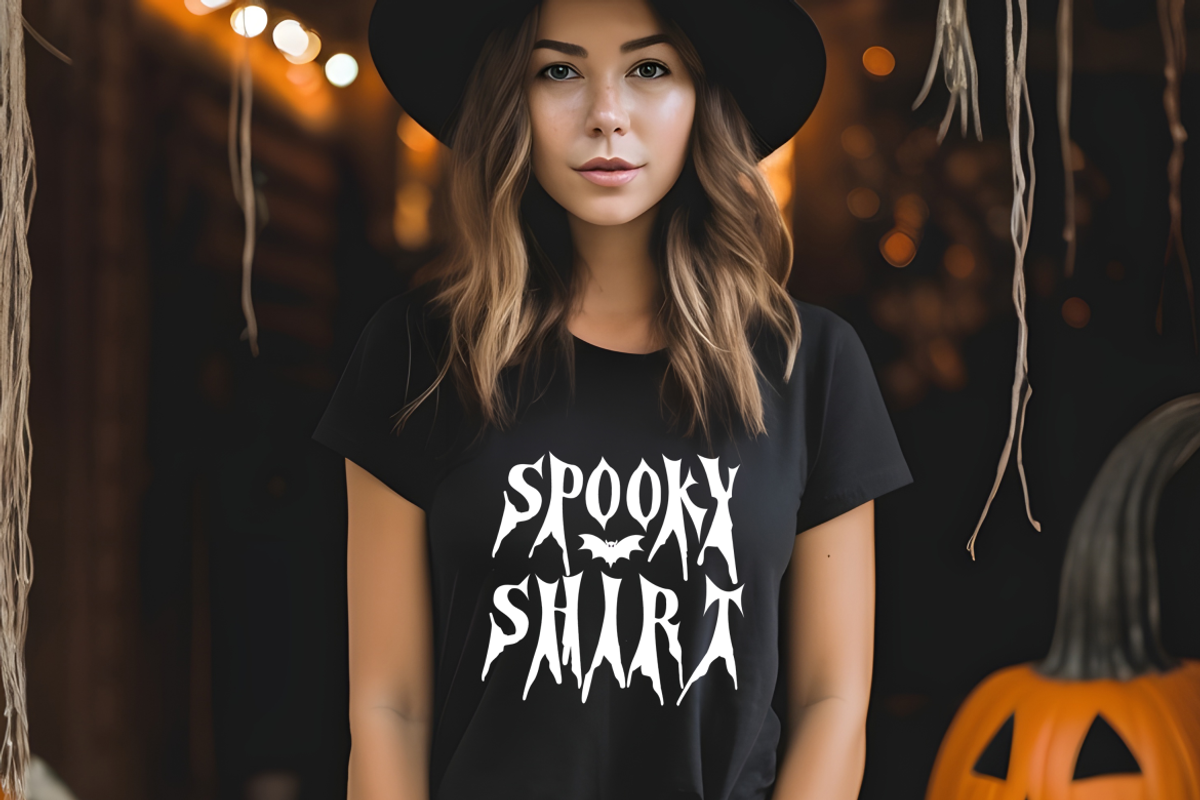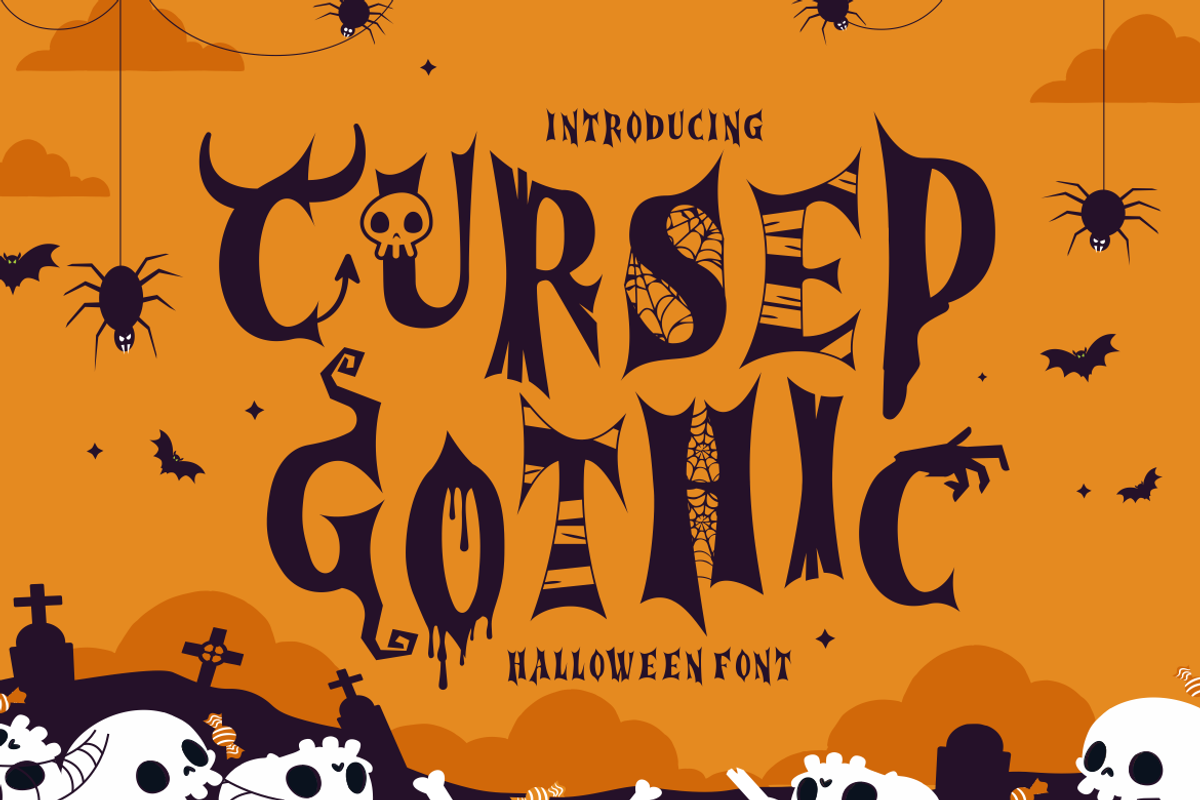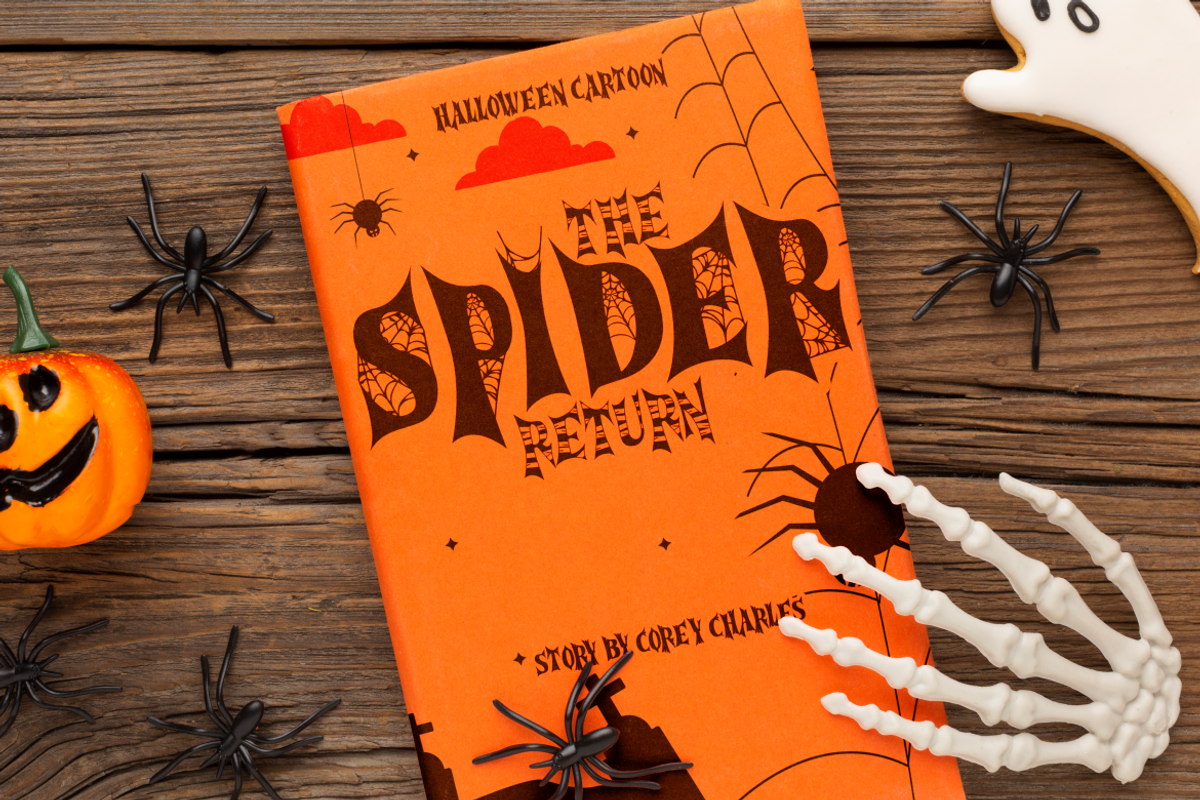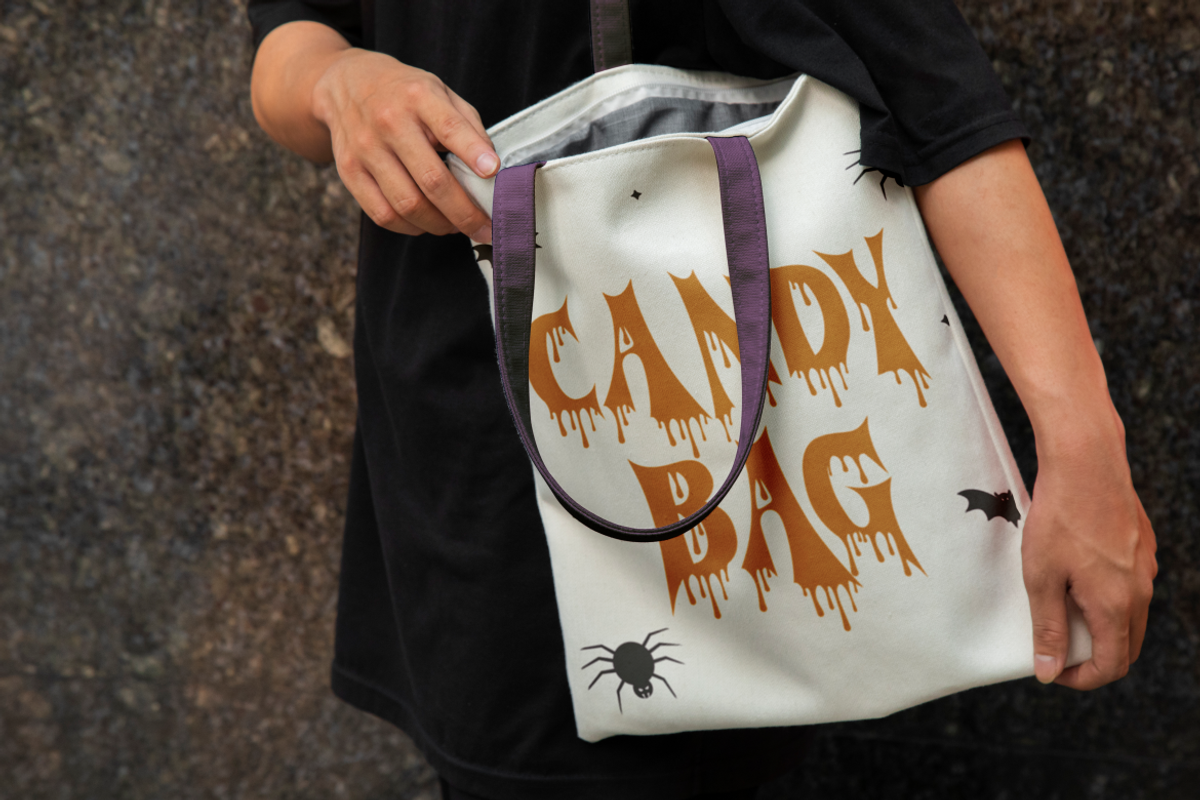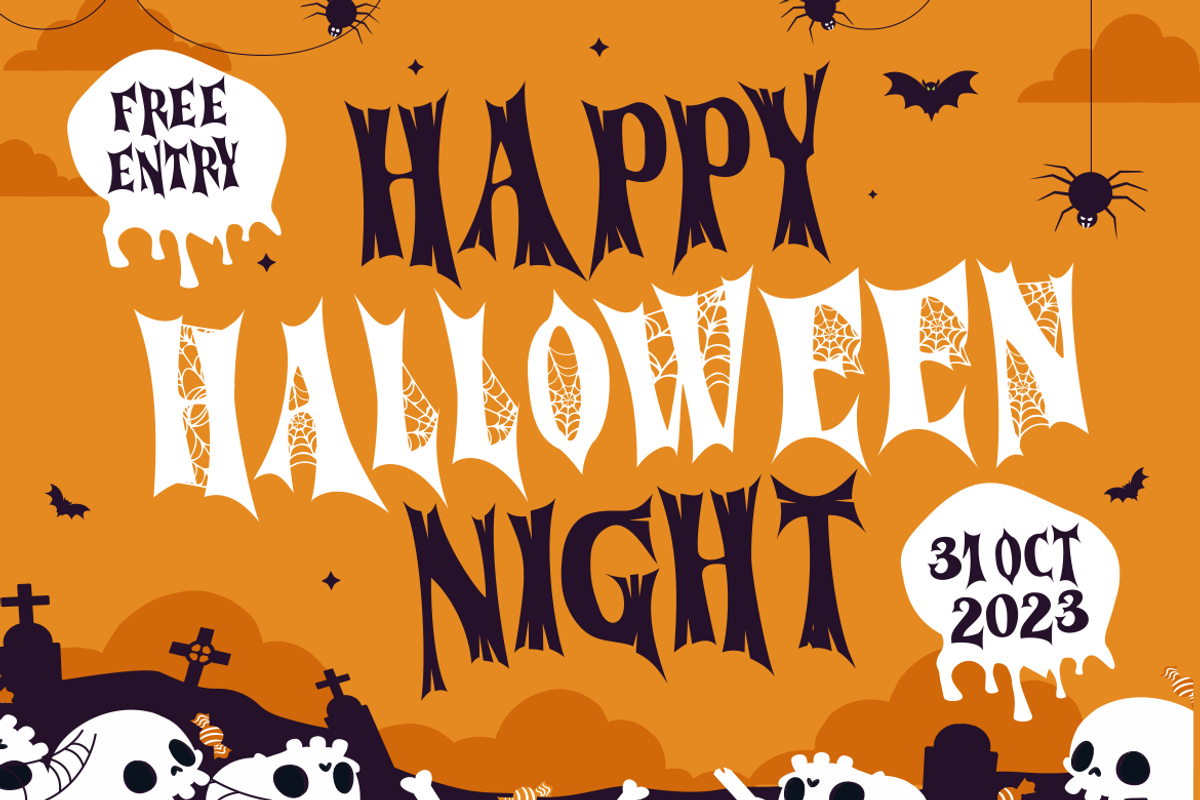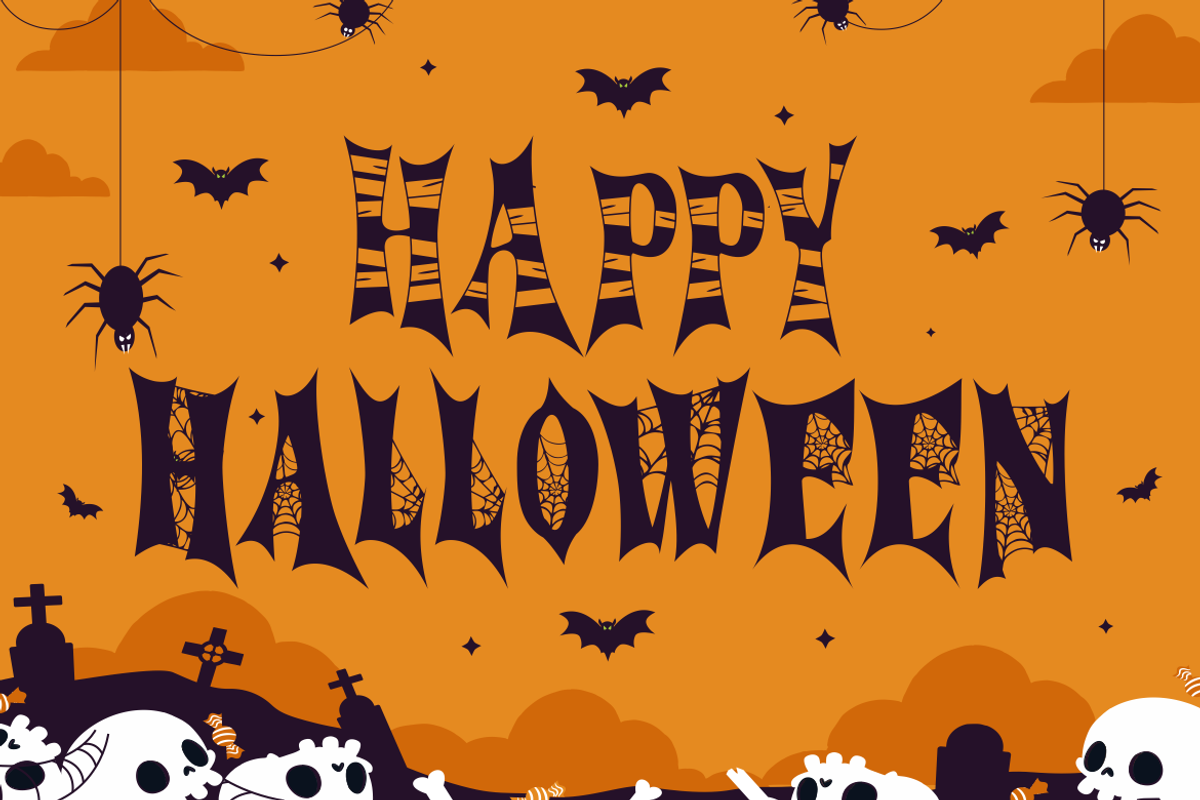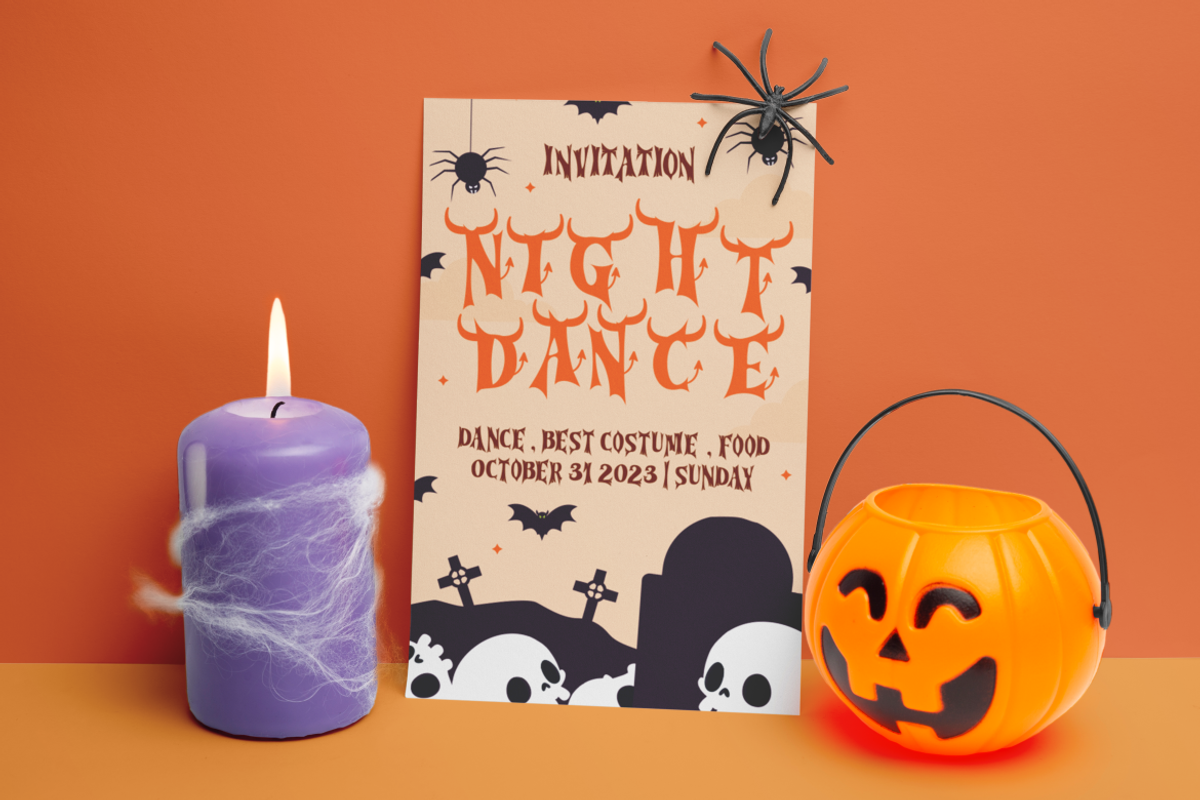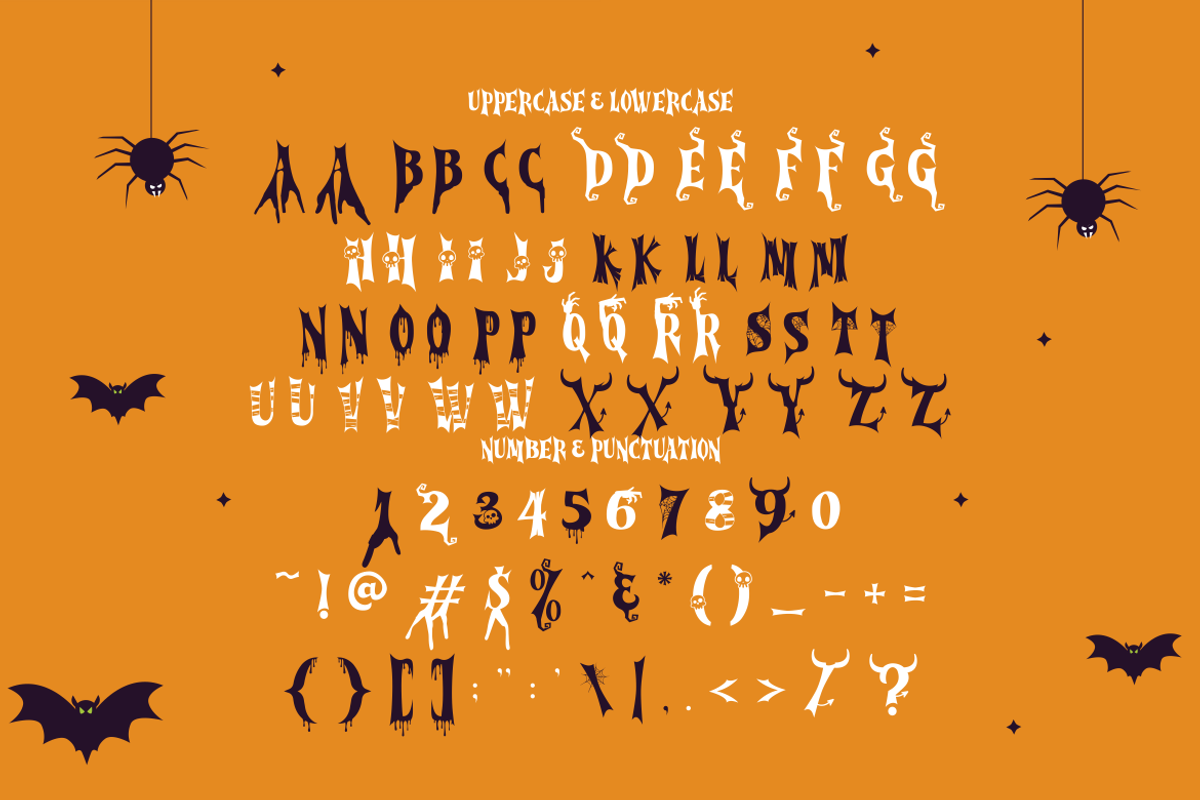
Cursed Gothic - Halloween Font
Are you looking for a font that captures the essence of Halloween? Do you want to add some spooky flair to your designs? If so, you will love Cursed Gothic - Halloween Font!
Cursed Gothic is a display font that features dark letters with intricate details and thematic elements. Each letter is designed to evoke a scary, yet fun atmosphere, perfect for Halloween-themed projects. The font offers various styles that can be used individually or combined to create complex and unique designs. Whether you want to add some spider webs, bones, dripping effects, or other spooky touches, Cursed Gothic has it all!
Cursed Gothic is not just a font; it’s an experience tailored for children, crafters, and anyone looking to infuse an element of playful horror into their work. You can use it for logos, branding, children’s themes, crafting projects, invitations cards, packaging designs, posters, titles, business cards, greeting cards, stickers, children’s books, magazines, and any design correlating with the font’s theme. Every stroke encapsulates the spirit of Halloween while maintaining an inviting allure that engages both kids and adults alike.